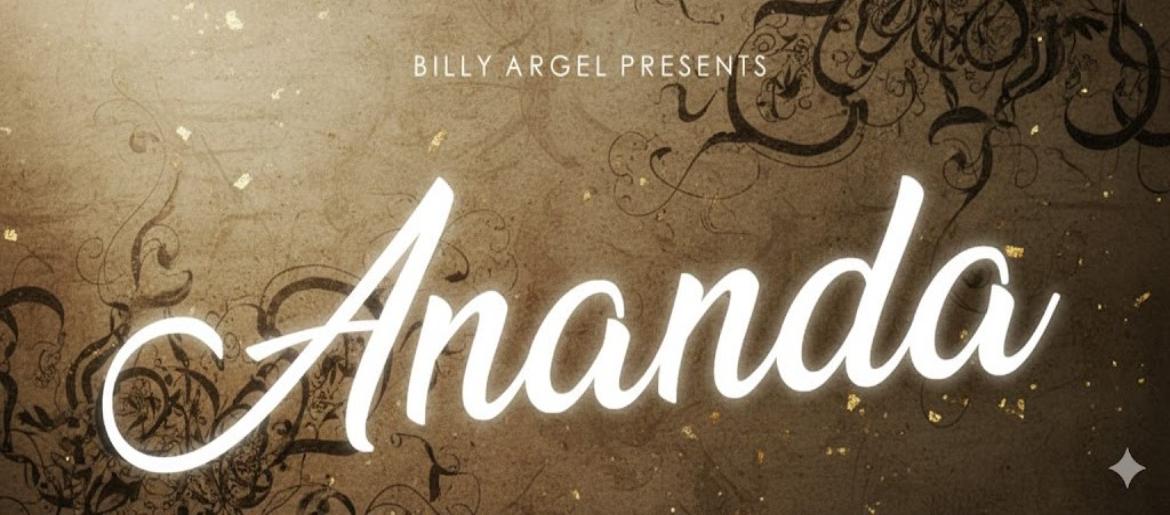
Ananda Black Font
Ananda Black Font is a stylish calligraphy typeface featuring bold, flowing strokes and elegant curves. Its expressive handwritten character makes it ideal for invitations, quotes, logos, social media graphics, and branding projects that require a graceful, artistic, and eye-catching look.
➤ Style: Calligraphy